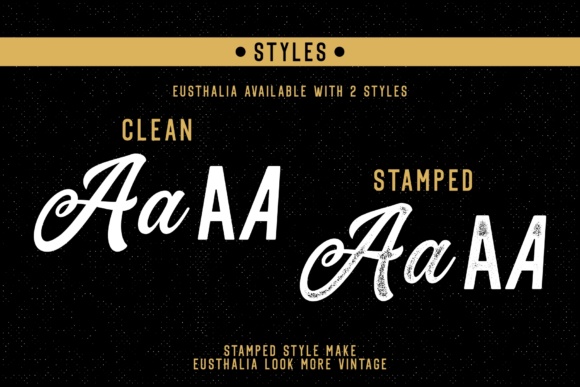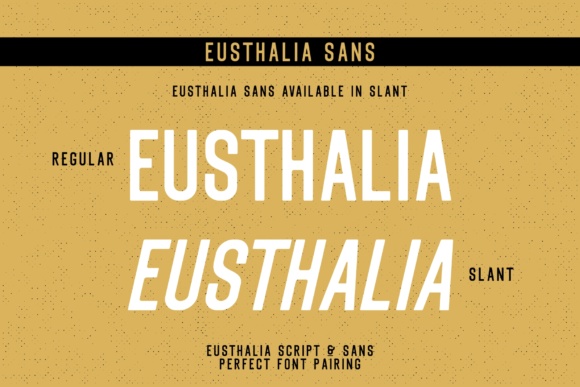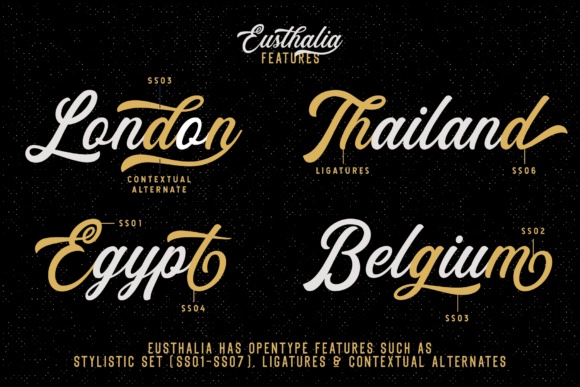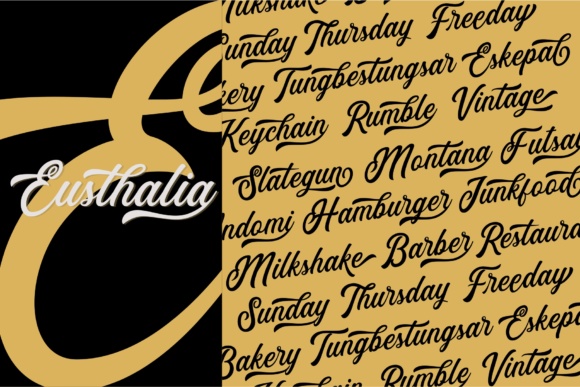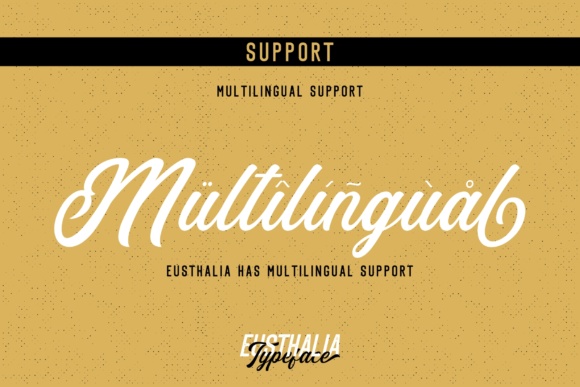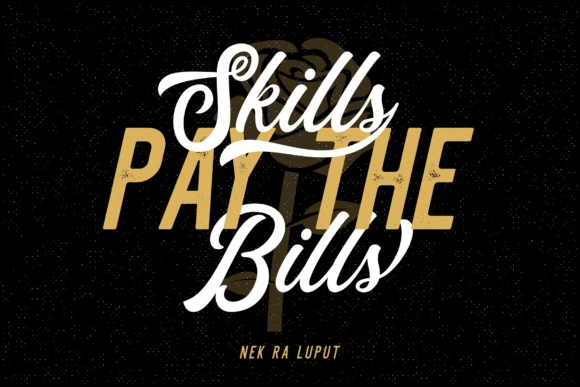
Unlocking the Charm of the Eusthalia Family Font
Have you ever been brainstorming ideas for a vintage-inspired design project, only to find yourself stuck on the perfect font? The struggle is real, but the solution is here. Introducing the Eusthalia Family Font, a versatile and charming typeface designed to transport you back in time.
This beautiful font family consists of script and sans versions, each with two distinct styles: clean and stamped. Whether you’re working on a poster, magazine, or advertising campaign, the Eusthalia Family Font is sure to add a touch of elegance and sophistication. Its unique character makes it a valuable asset for designers looking to create eye-catching and memorable designs.
With the Eusthalia Family Font, you’ll be able to bring your creative vision to life with ease. Its versatility and charm make it a must-have for any designer looking to add a vintage touch to their work.
Eusthalia Family Font Key Features
- Font Family: Eusthalia is a family of fonts, offering a range of styles and weights, including Eusthalia, Eusthalia Bold, Eusthalia Light, and more.
- Unique Characteristics: Eusthalia features a unique blend of modern and traditional design elements, making it suitable for a wide range of applications, from corporate branding to editorial design.
Eusthalia Family Font Review
Overall, I’m quite impressed with the Eusthalia Family Font. It has a unique and elegant design that can add a touch of sophistication to any project. ✨ Here are some of the things that I think work well:
- Beautiful cursive script – The font has a beautiful, flowing script that is perfect for creating a sense of elegance and refinement.
- Wide language support – Eusthalia Family Font supports a wide range of languages, making it a great choice for international projects.
- High-quality vector graphics – The font is available in high-quality vector format, making it easy to scale and manipulate.
However, there are a few limitations to the font that I think are worth mentioning:
- Limited bold and italic options – While the font has a beautiful script, the bold and italic options are a bit limited.
- No webfont support – The font is not available in webfont format, which can make it difficult to use on websites.
- No OpenType features – The font does not support OpenType features, which can limit its use in complex typography projects.
Overall, I think the Eusthalia Family Font is a great choice for projects where you want to add a touch of elegance and sophistication. While it has some limitations, it is still a high-quality font that can add a lot of value to your designs.
The Eusthalia Family Font is ideal for use in creative projects, such as:
– Book covers and interior designs
– Magazine and newspaper layouts
– Business cards and letterheads
– Infographics and presentations
Tips for getting the most out of the font include:
– Experimenting with different font styles and combinations
– Using the font in conjunction with other design elements, such as images and graphics
– Adjusting font sizes and spacing to achieve a balanced and visually appealing design.